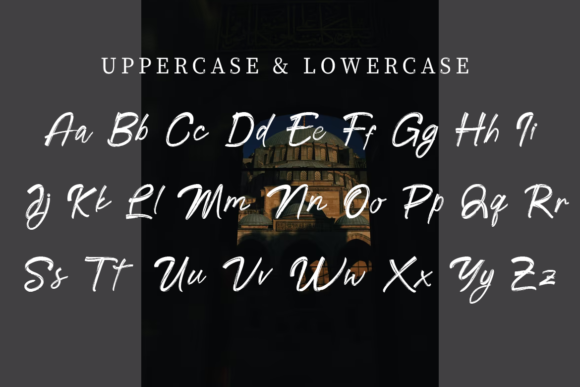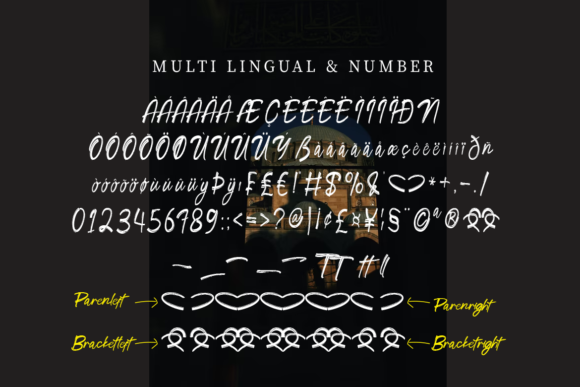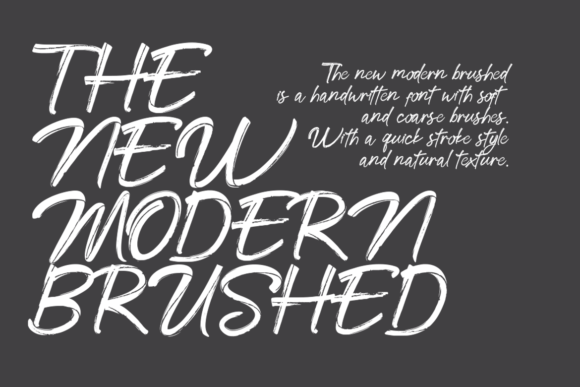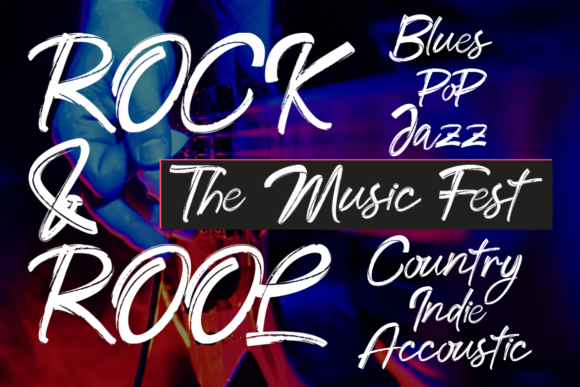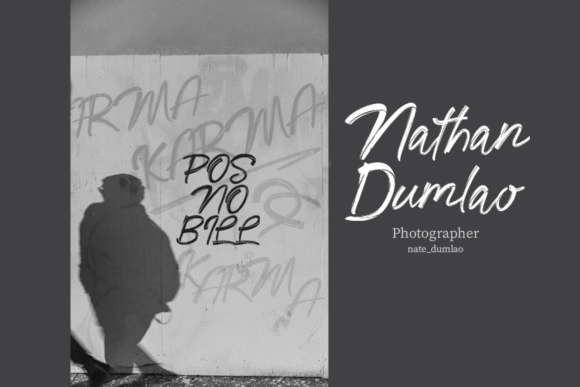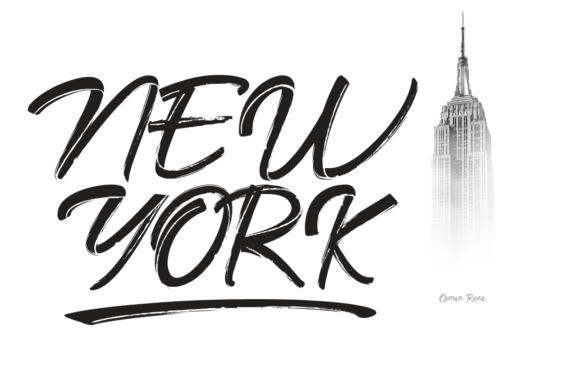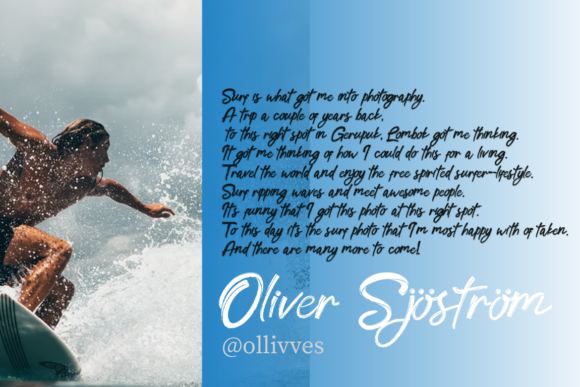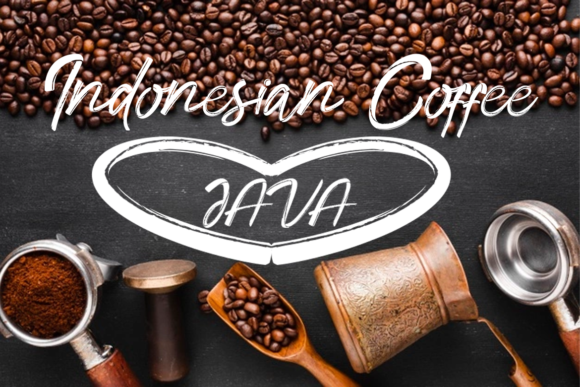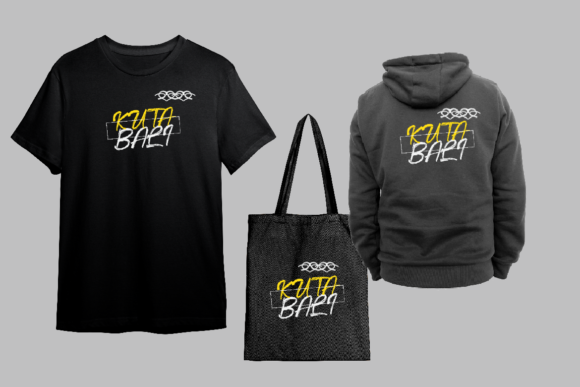
Java Font
About Java Font
Java is a cool, neat and brushed handwritten font. It has a street vibe and it will fit your various posters, branding, t-shirt designs and more. employ it confidently!